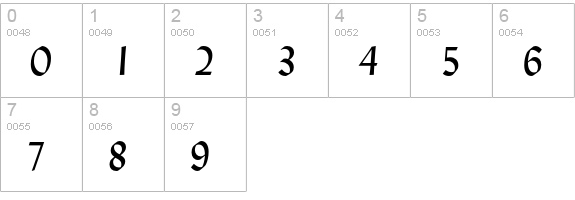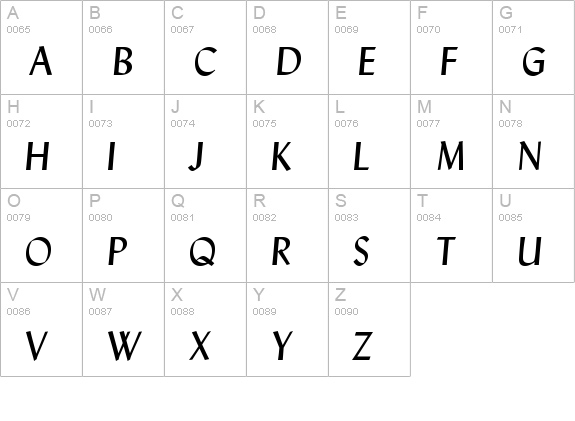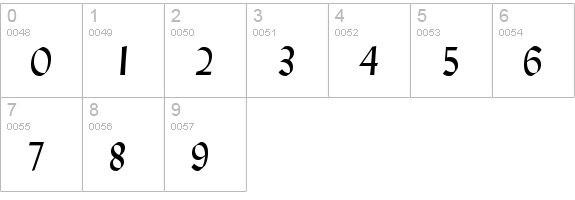
Lydian Italic Font Details
Lydian Italic is a distinctive, italic variant in the Lydian typeface family \xE2\x80\x94 well suited to design and typography projects.
The Lydian Italic font is a graceful and elegant typeface that exudes sophistication and timeless beauty. Its flowing curves and delicate serifs give it a sense of refinement, making it a perfect choice for projects that require a touch of class. The italicized design adds a touch of flair and uniqueness, making your text stand out in a sea of ordinary fonts. Best of all, the Lydian Italic font is available for free download at FontsMarket.com. This means you can easily access this stunning typeface without any cost, making it a valuable addition to your font collection. Whether you're working on a professional project or simply want to elevate your personal designs, the Lydian Italic font is sure to impress with its style and versatility. Download it today and add a touch of sophistication to your next project.